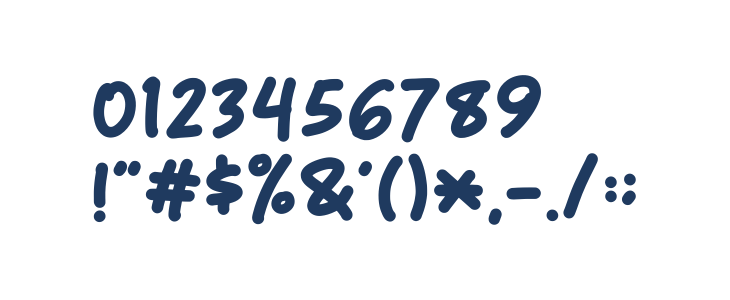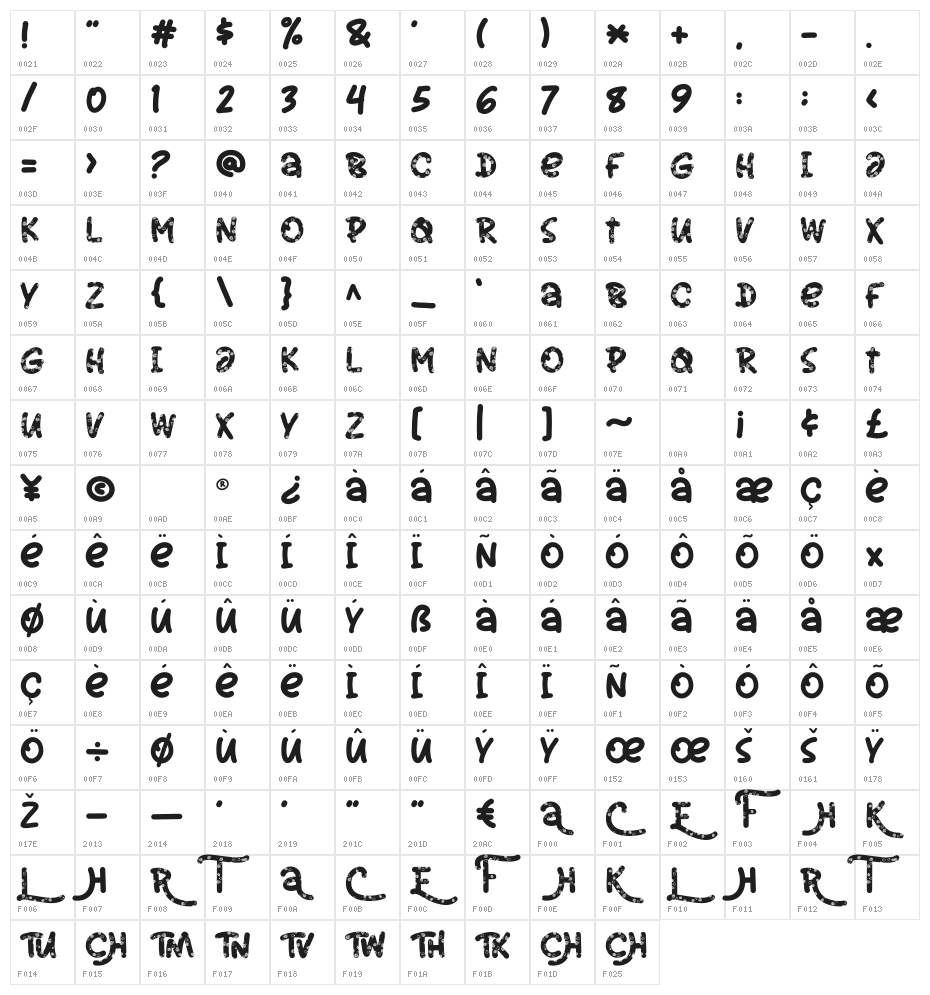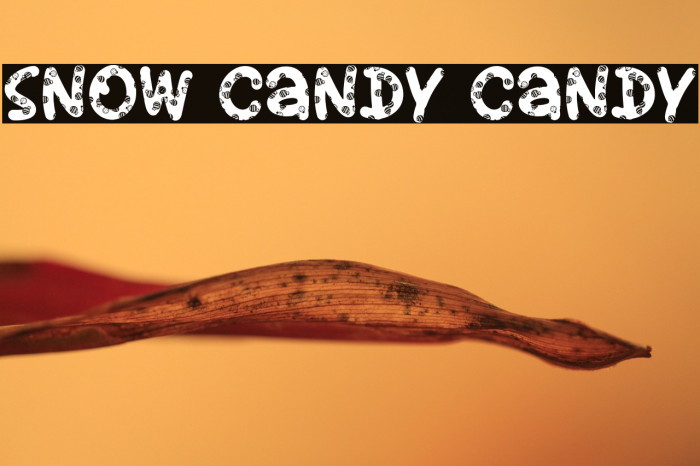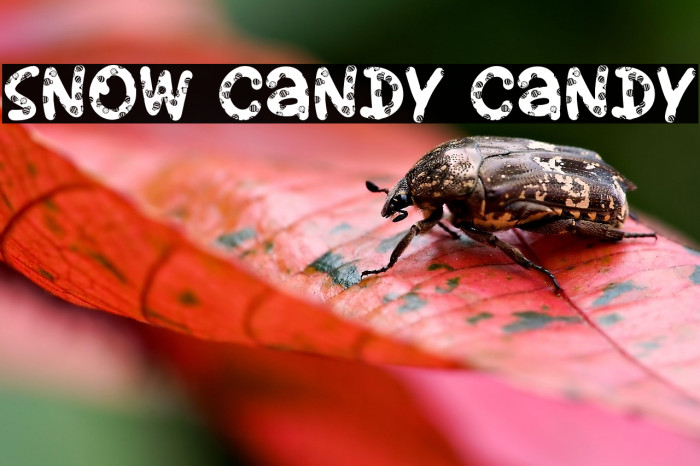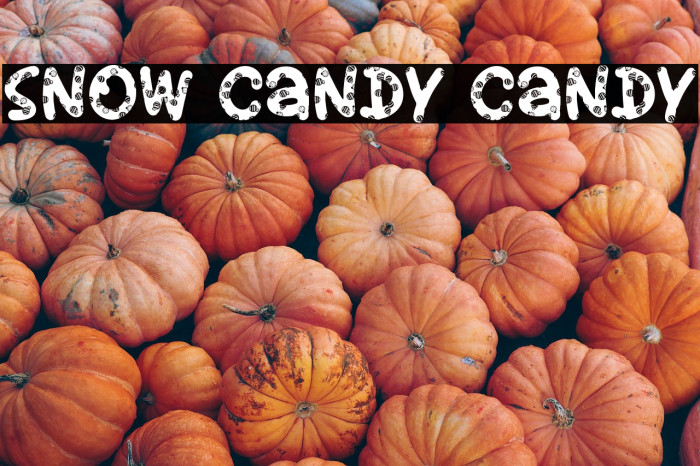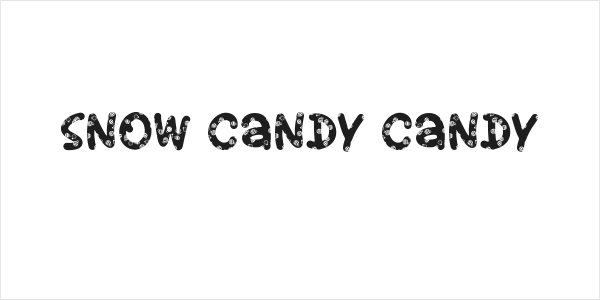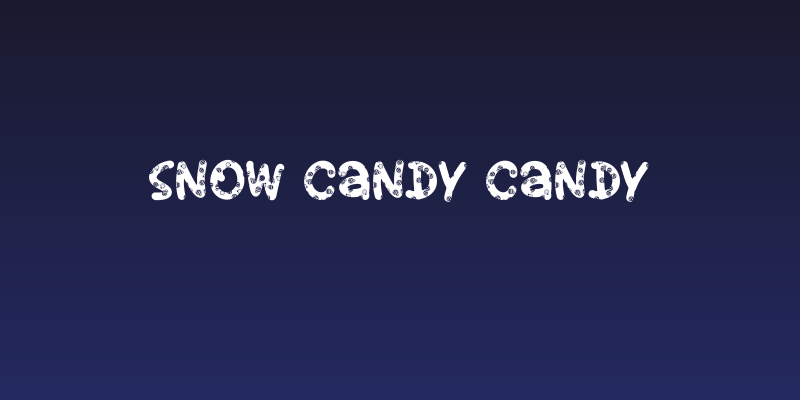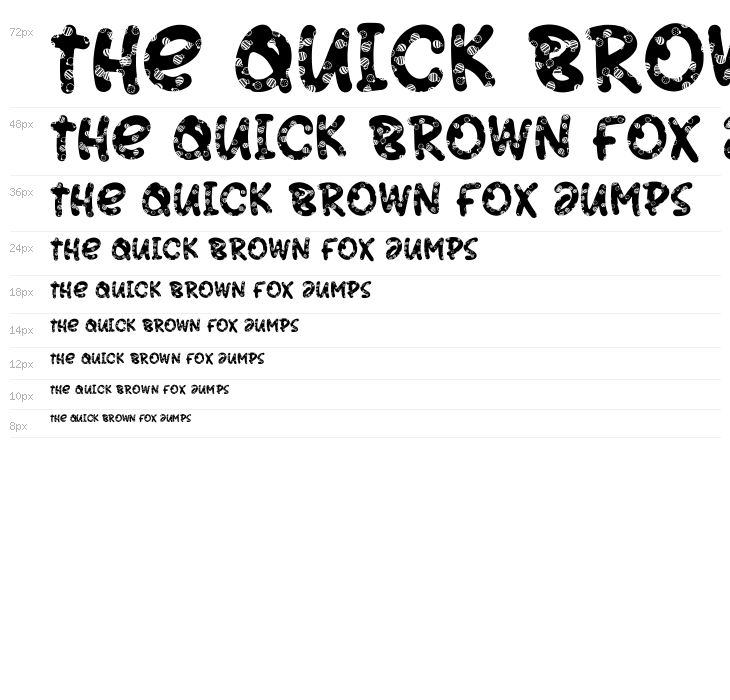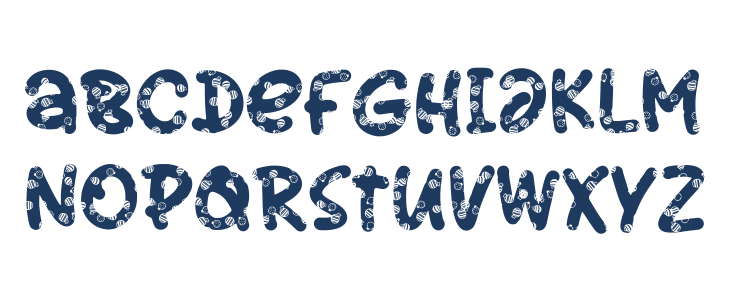
Snow Candy Candy Font
Snow Candy Candy Description
This playful and whimsical font features bold, rounded characters with a unique candy-like pattern embedded within each letter. The design is reminiscent of festive decorations, making it ideal for projects that require a fun and lively touch. The characters are evenly spaced, ensuring readability while maintaining a decorative flair. The font includes both uppercase and lowercase letters, numerals, and a variety of special characters, all maintaining the same joyful theme. Its bold appearance makes it stand out, perfect for capturing attention in creative designs.